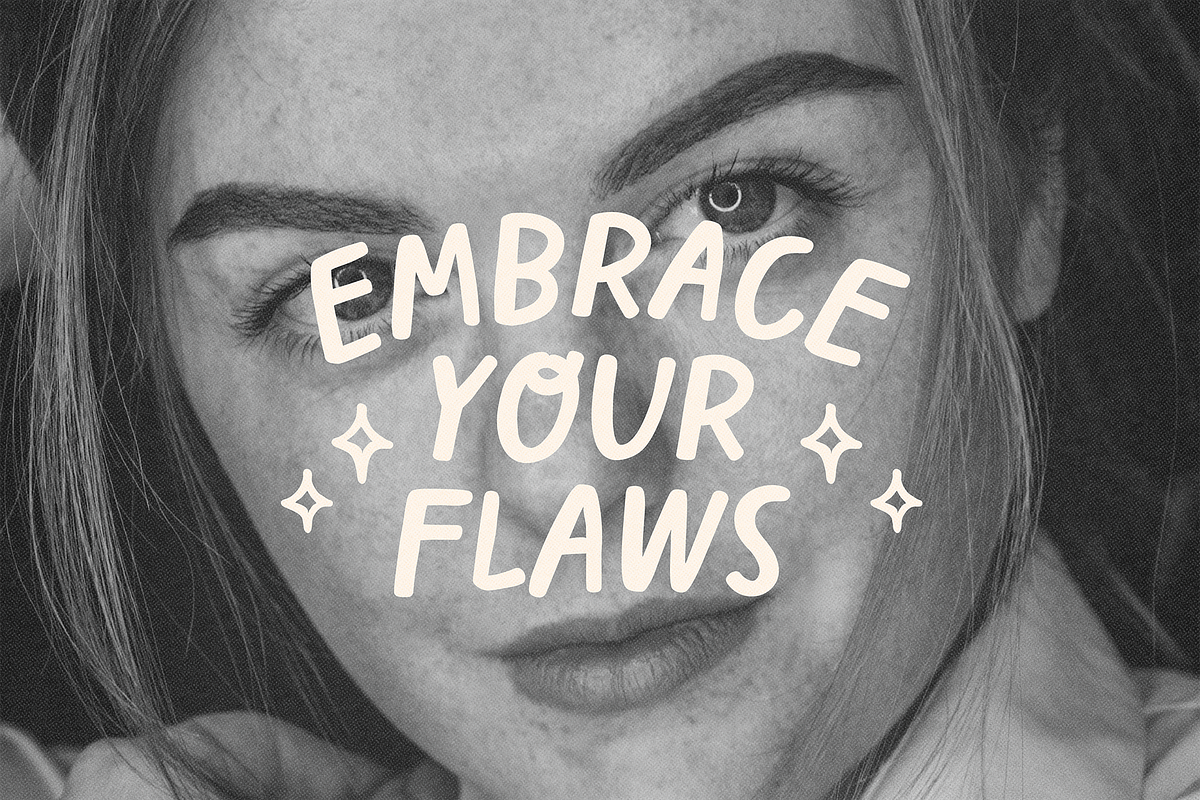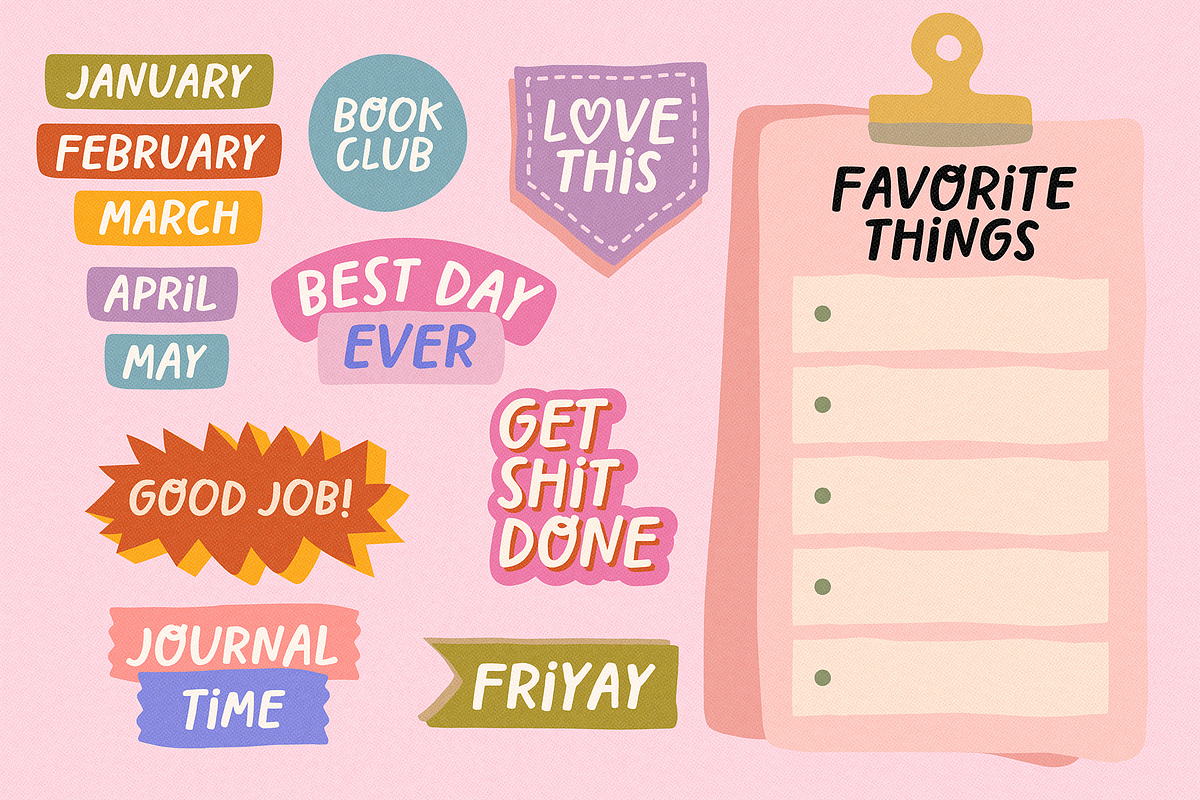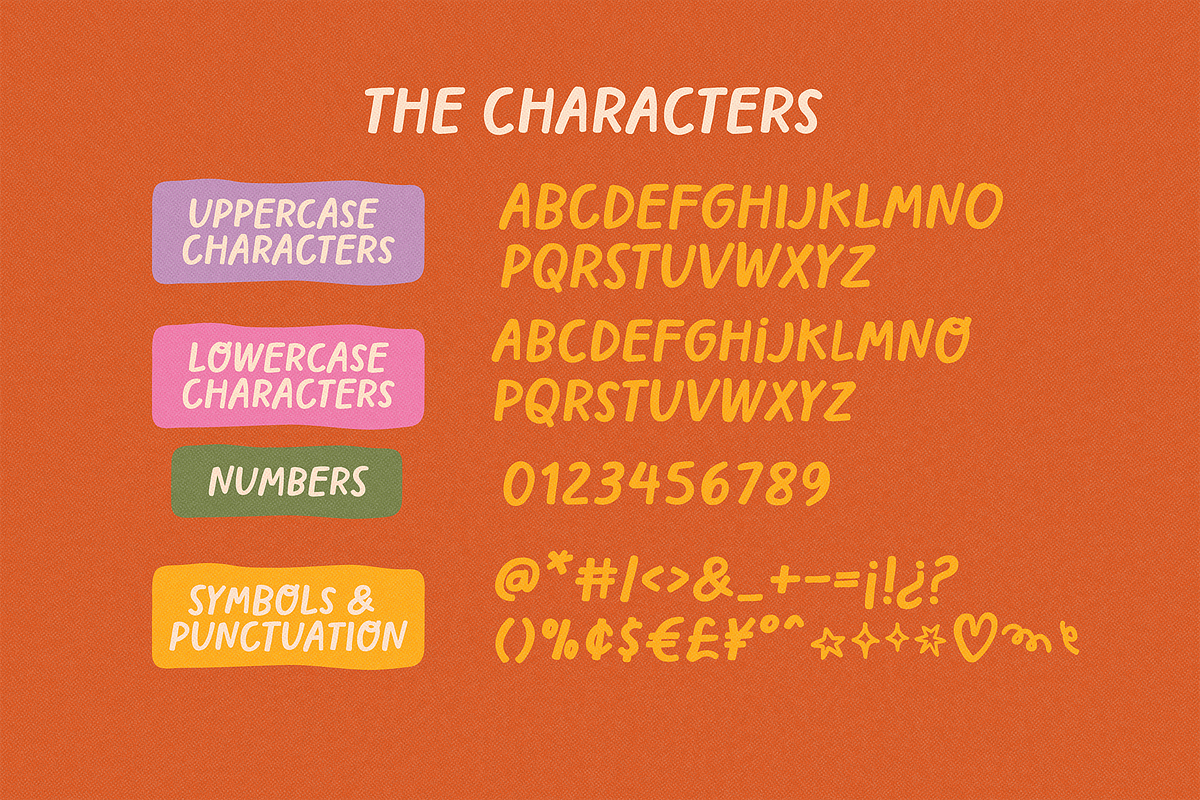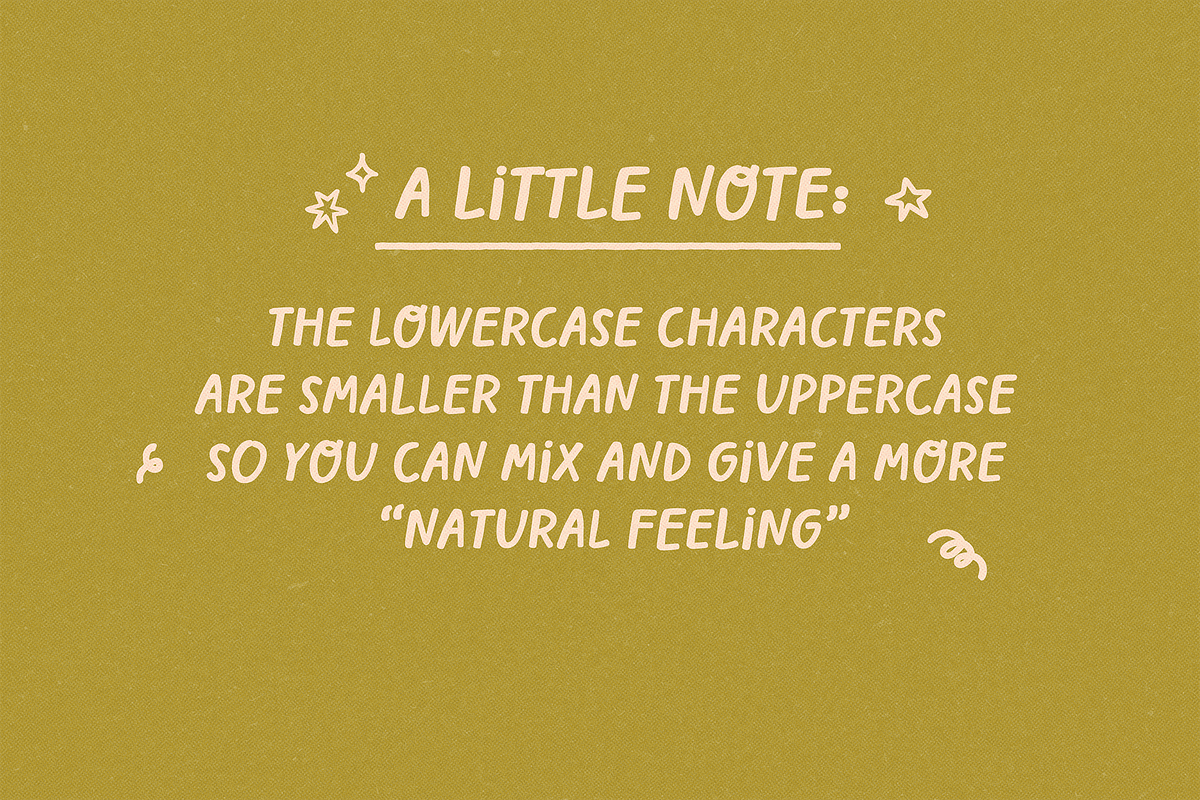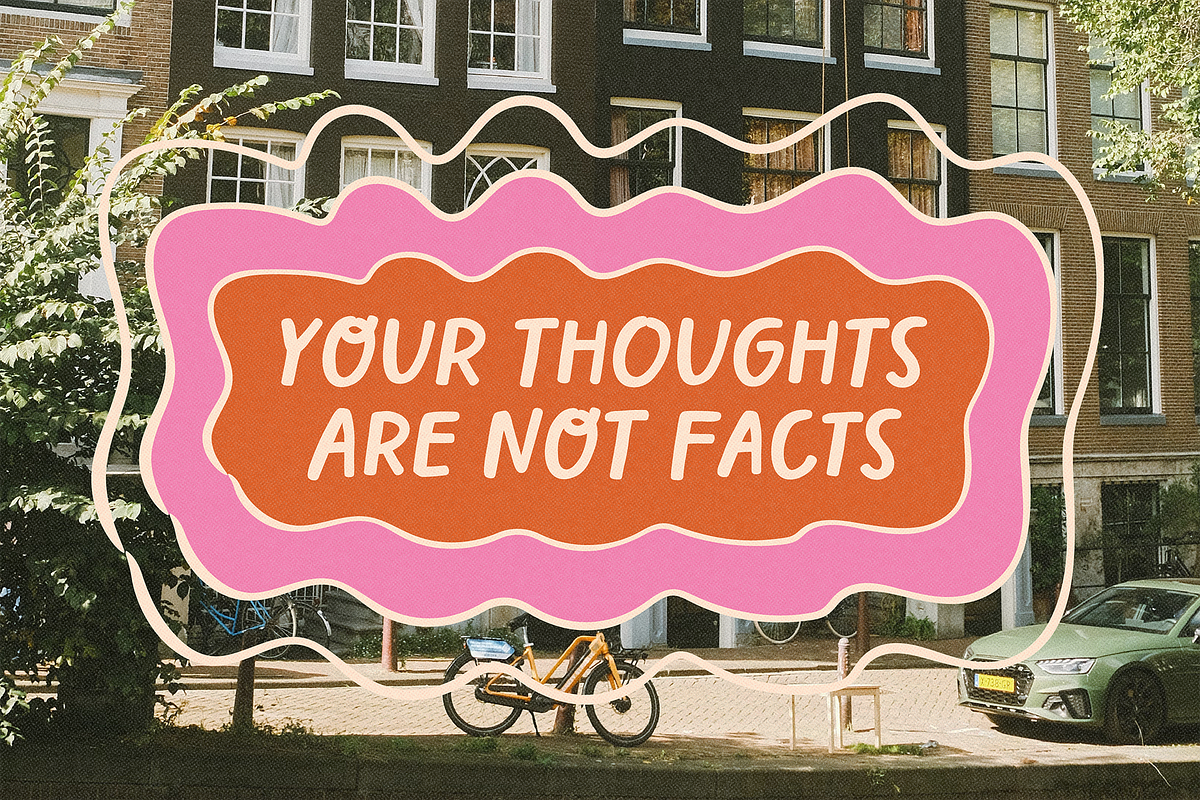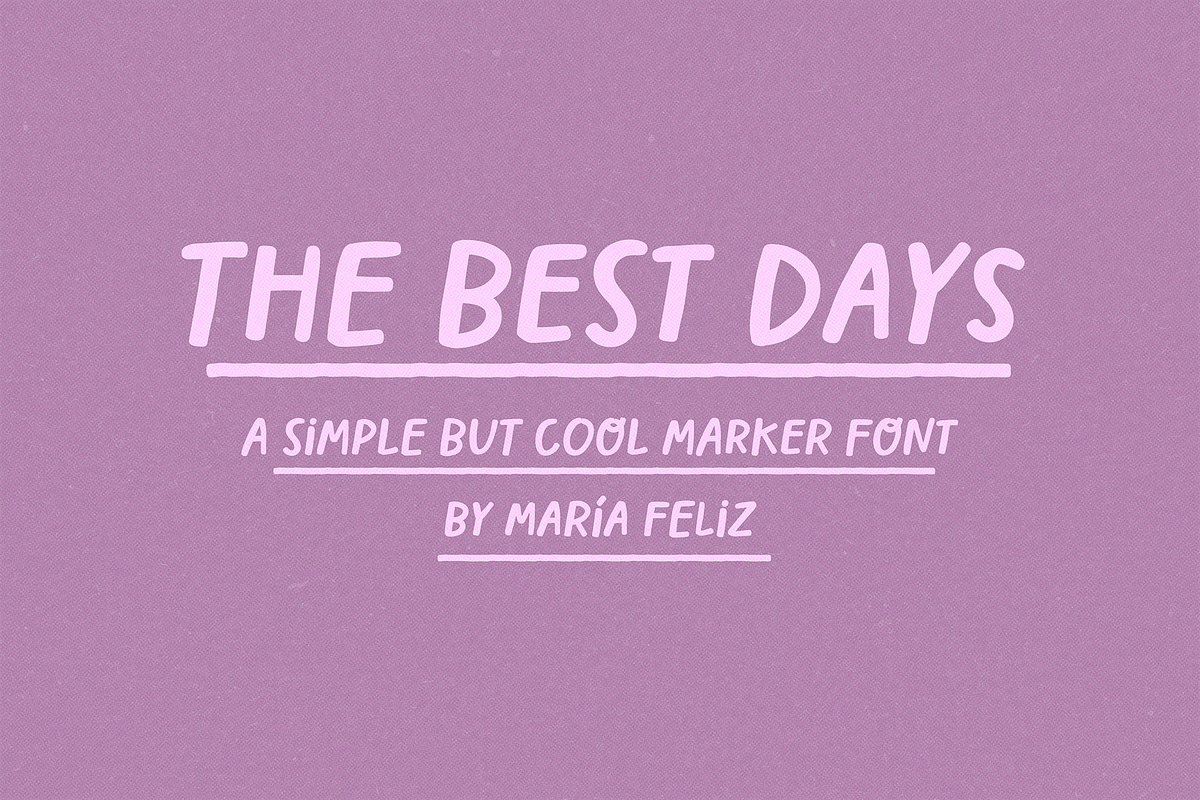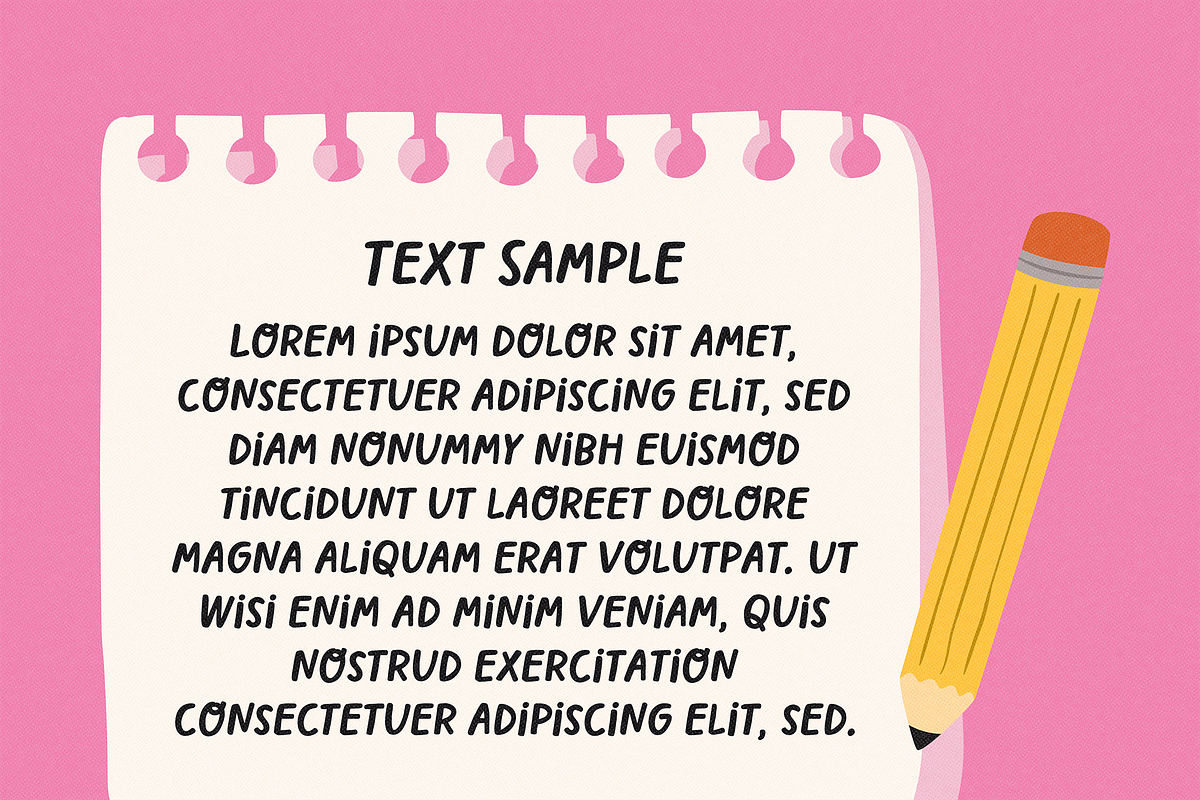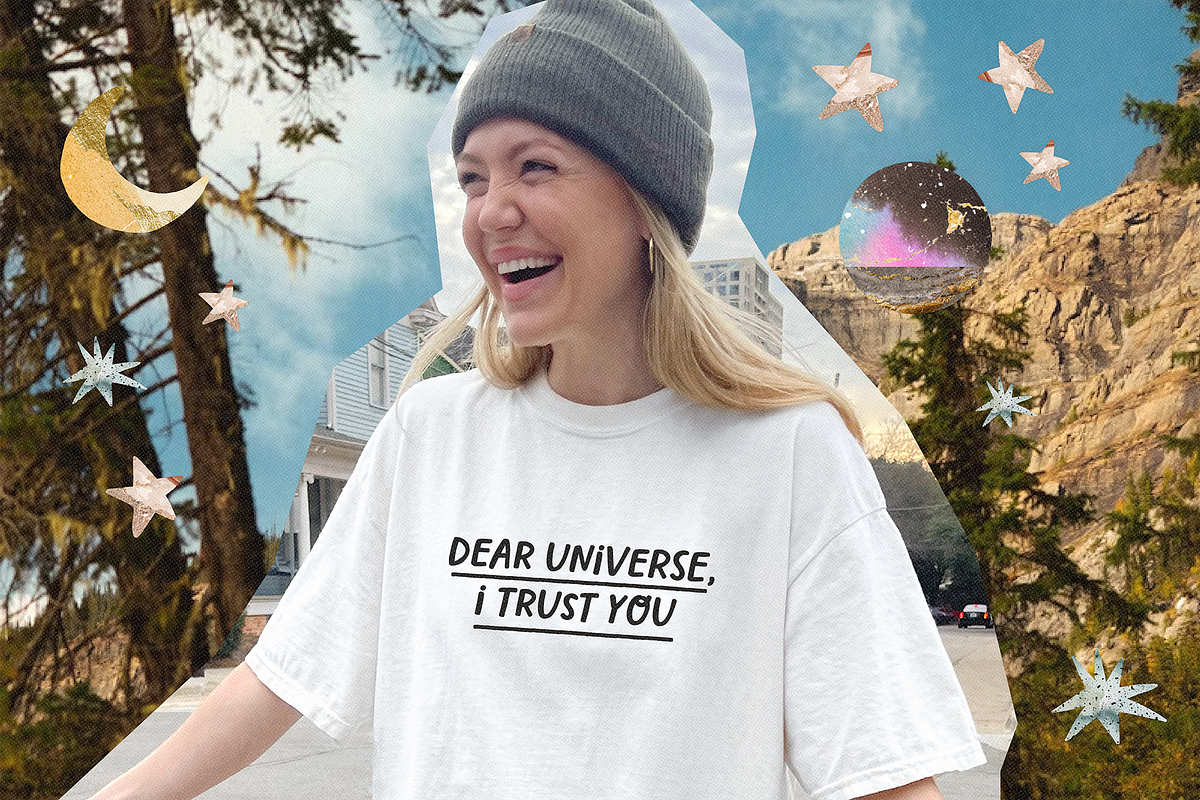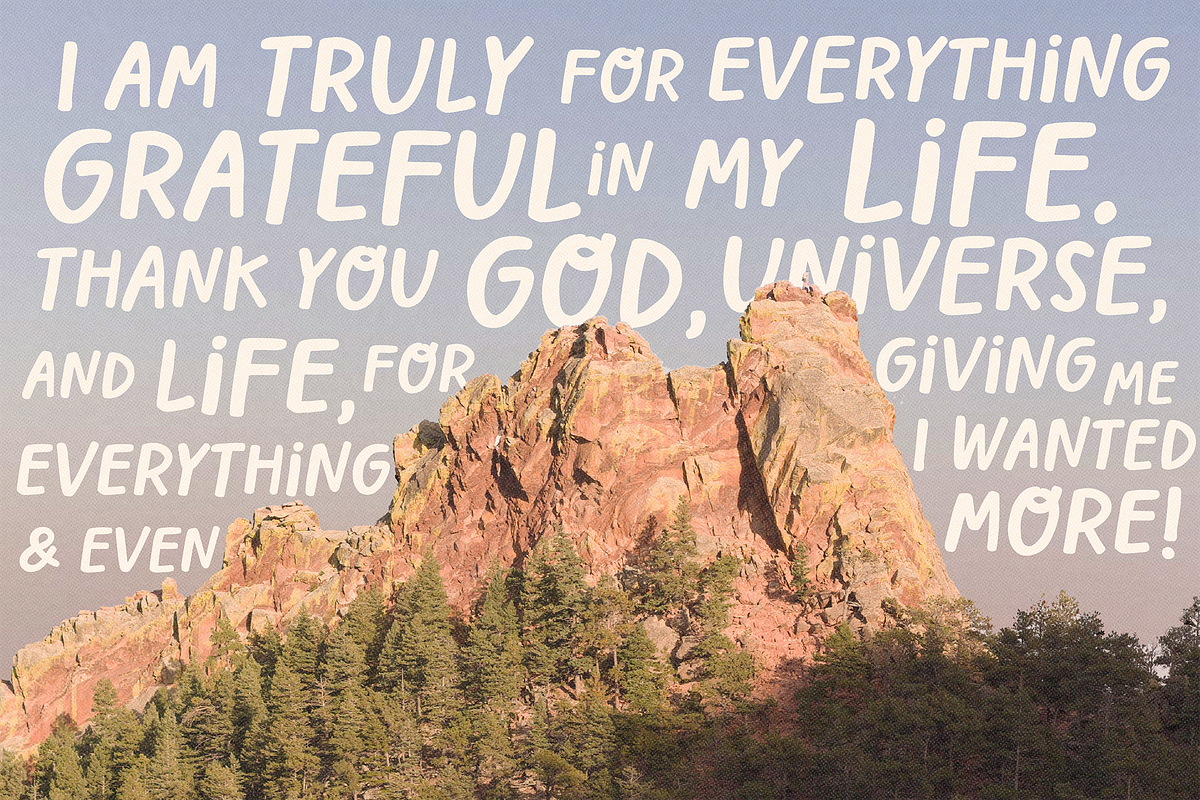
THE BEST DAYS | MARKER FONT
The Best Days - A Handmade Marker Font
The Best Days is a cool and versatile handwritten font inspired by marker strokes. Its organic and simple style makes it perfect for social media, stickers, merch, planners, logos, and more.
Mix uppercase and lowercase letters for a natural, irregular vibe. Some characters are the same, while others are slightly smaller for an authentic handmade look.
✷ Features:
- Handcrafted for an authentic, handmade look.
- Highly versatile for multiple uses.
✷ Use the 8 symbols included to make cute/cool compositions.
- Left curly bracket { – Big Star
- Right curly bracket } – Big Shine
- Left square bracket [ – Small Shine
- Right square curly bracket ] – Other star
- Period Centered · – Curly A
- Greater Equal symbol ≥ – Curly B
- Less Equal symbol ≤ – Curly C
- Logical not ¬ – Heart
Whether for digital or print projects, The Best Days is your go-to font for effortless and stylish designs.